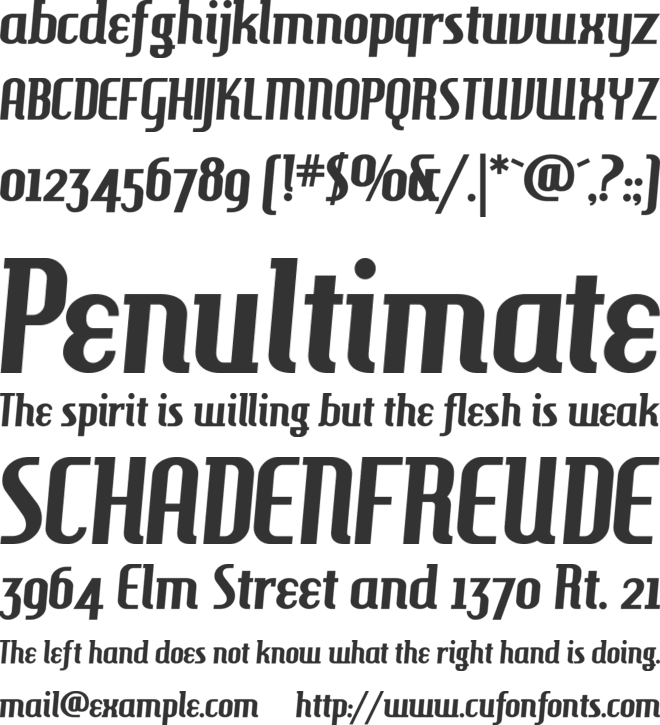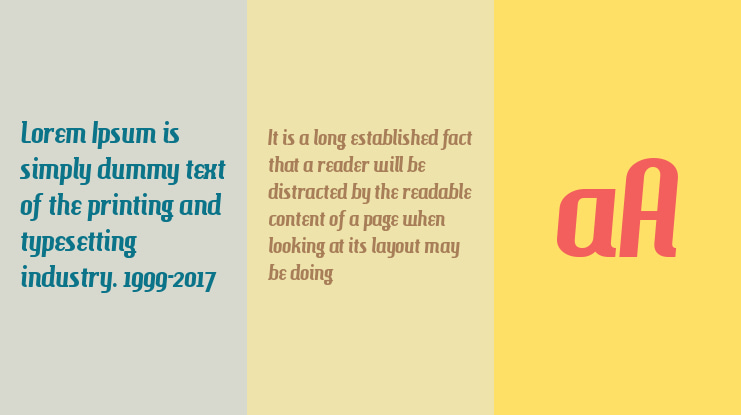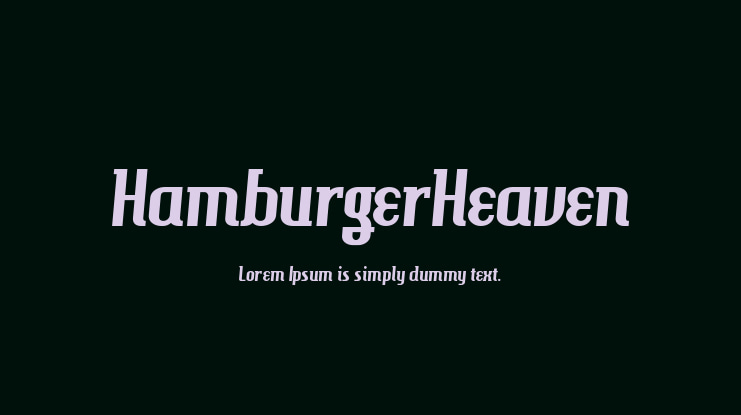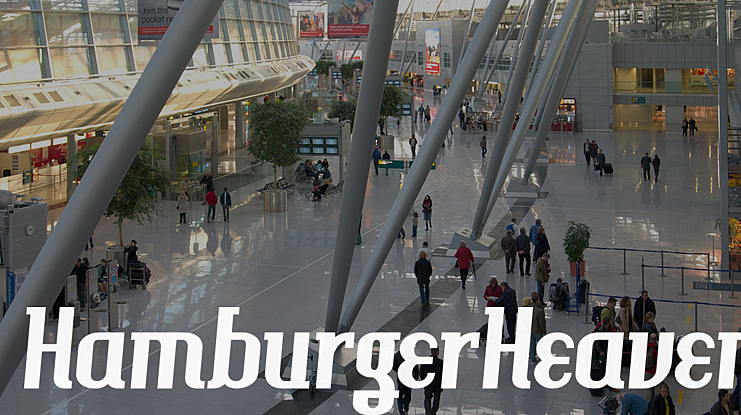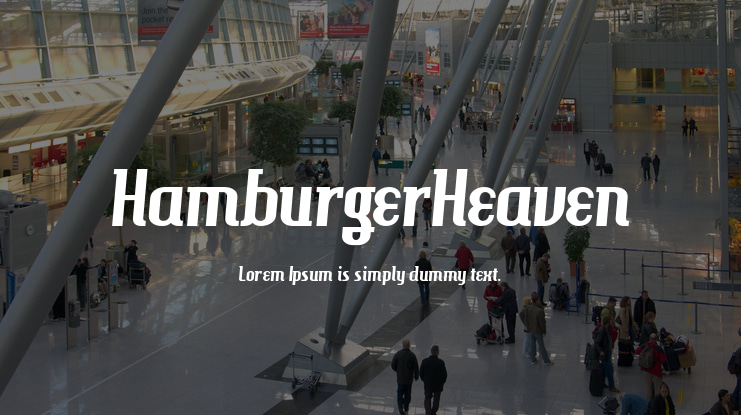
HamburgerHeaven Font
Nick Curtis
This font is basically a design exercise, influenced by a number of contemporary fonts, but unique in its own way. The gentle, fluid motion reminded me of diner lettering from the 30s and 40s, hence the name.